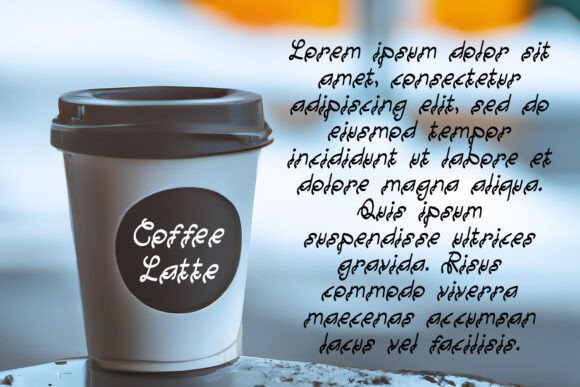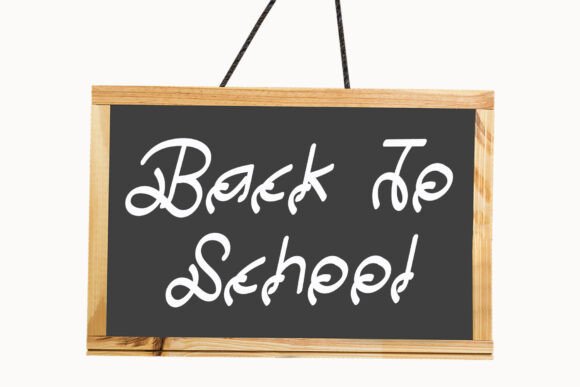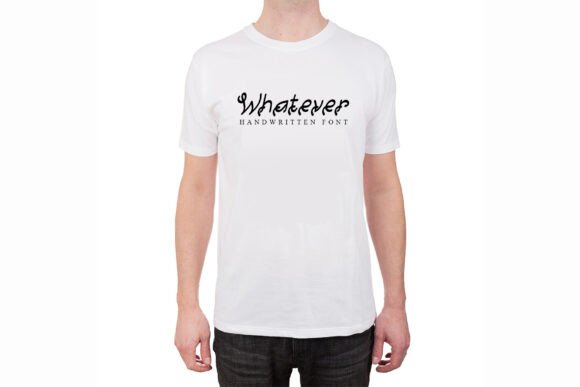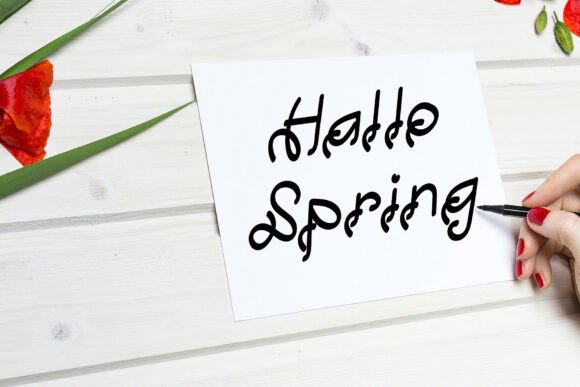
Unleash Your Creativity with the Bells Font
You know that moment when a spark of creativity strikes, and you envision the perfect design for your next project? The one that captures the essence of the occasion and leaves a lasting impression on your audience? For designers, this moment is what drives us to push the boundaries of our craft.
That’s where the Bells Font comes in – a unique and elegant font designed to elevate your creative ideas. With a professional hand touch, this font is perfect for a wide range of projects, from wedding invitation cards to birthday greetings, and even school assignments. Its versatility and accessibility make it a valuable addition to any designer’s toolkit.
By incorporating the Bells Font into your designs, you can add a touch of sophistication and personality that sets your work apart. With all glyphs available without additional application, you can focus on what matters most – bringing your creative vision to life.
Bells Font Key Features
- Unique Characteristics: The font features a unique blend of vintage and modern elements, with intricate details and ornate flourishes.
Bells Font Review
I recently had the chance to work with the Bells font, and I must say it’s a mixed bag. Let’s dive into the good and the not-so-good.
- Unique, elegant feel: Bells font has a distinct, sophisticated look that’s perfect for luxury brands or high-end designs.
- Good legibility: The font is clear and easy to read, even at smaller sizes.
- Not ideal for body text: While Bells font looks great for headlines, it can be too ornate and difficult to read for large blocks of text.
- Limited language support: I noticed some issues with non-English characters, which may be a concern for global brands.
- No bold or italic variants: This limited the creative possibilities for my designs.
While Bells font has some great qualities, its limitations hold it back from being a go-to font for me. However, if you’re looking for a unique, high-end feel, it’s definitely worth considering – just be mindful of its limitations.
The Bells Font is commonly used for:
- Party and event decorations.
- Children’s birthday party invitations.
To get the most out of the Bells Font, try the following:
- Pair it with bright and bold colors to create a festive atmosphere.
- Use it in combination with other playful fonts for a whimsical look.
- Experiment with different font sizes and styles
Alternatives to Bells Font
Playfair Display is an elegant serif font suitable for titles, headings, and body text in luxury branding, high-end fashion, and fine art. Its refined look makes it ideal for creating a sense of sophistication and glamour. Compared to Bells Font, Playfair Display has a more refined and luxurious feel, making it suitable for high-end applications.
Didot is a classic serif font with a touch of elegance and sophistication. It’s perfect for luxury branding, high-end fashion, and fine art. Compared to Bells Font, Didot has a more refined and classic look, making it suitable for applications that require a sense of tradition and sophistication.
Merriweather is a classic serif font with a timeless feel. It’s suitable for body text, headings, and titles in various applications, including publishing, education, and corporate branding. Compared to Bells Font, Merriweather has a more classic and traditional look, making it suitable for applications that require a sense of stability and reliability.